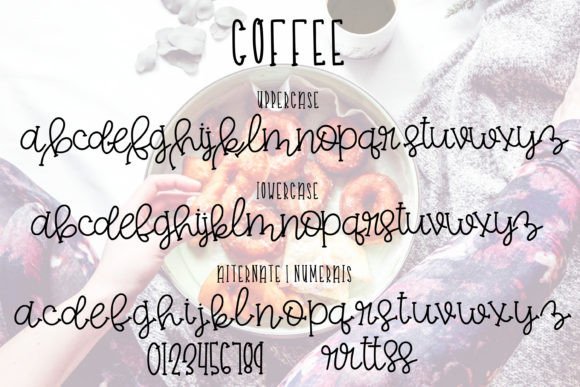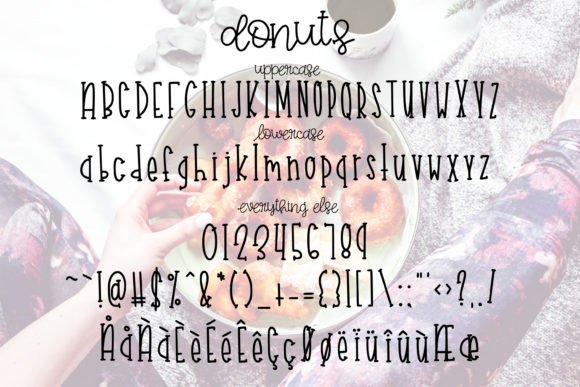
Coffee & Donuts Font: The Perfect Pairing for Creative Sweetness
Get ready to indulge in some creative sweetness with the Coffee & Donuts font duo! This playful pair of fonts is like the perfect combo of your favorite morning treat. The whimsical “Coffee” script brings a swirl of charm and the “Donuts” font adds a dash of simplicity with its casual style. Whether you’re designing for café menus, or greeting cards, this duo brings warmth and creativity to your projects. It’s a delightful mix that will have your designs brewing with joy!
The Coffee Font: A Whimsical Script with Charm
The Coffee font is a beautiful, hand-crafted script that brings a touch of elegance and whimsy to any design. Its flowing curves and swirling lines evoke the feeling of a perfectly poured cup of coffee on a lazy Sunday morning. This font is perfect for adding a personal touch to your designs, whether you’re creating a menu for a trendy café or a greeting card for a friend’s birthday.
With its unique blend of cursive and print elements, the Coffee font is sure to add a dash of sophistication and style to your projects. Its legibility and readability make it an excellent choice for body text, while its flair and personality make it perfect for headings and titles.
The Donuts Font: Casual, Simple, and Sweet
The Donuts font is a clean, casual, and highly legible sans-serif font that pairs perfectly with the Coffee script. Its simple, rounded edges and open curves make it easy to read and understand, even at small sizes. This font is ideal for adding a touch of friendliness and approachability to your designs, whether you’re creating a flyer for a bakery or a social media post for a food blog.
The Donuts font is also highly versatile, and can be used for a wide range of design applications, from headings and titles to body text and captions. Its simplicity and clarity make it an excellent choice for designers who want to convey a sense of warmth and approachability in their work.
Why Use the Coffee & Donuts Font Duo?
So why choose the Coffee & Donuts font duo for your next design project? Here are just a few reasons why this pair of fonts is a must-have for designers and crafters:
- Perfect pairing: The Coffee and Donuts fonts are designed to work together in perfect harmony, creating a beautiful and cohesive look that’s sure to delight.
- Versatile: This font duo is highly versatile, and can be used for a wide range of design applications, from café menus to greeting cards, flyers, and more.
- Easy to read: Both fonts are highly legible and easy to read, making them perfect for body text, headings, and titles.
- Unique and creative: The Coffee & Donuts font duo brings a touch of whimsy and creativity to any design, making it perfect for designers who want to stand out from the crowd.
Design Ideas with Coffee & Donuts Font
So what can you create with the Coffee & Donuts font duo? Here are just a few design ideas to get you started:
- Café menus: Use the Coffee font to add a touch of elegance to your café menu, and the Donuts font to list off your delicious food and drink options.
- Greeting cards: Create beautiful and personalized greeting cards with the Coffee & Donuts font duo, perfect for birthdays, holidays, and more.
- Flyers and brochures: Use the Coffee & Donuts font duo to create eye-catching flyers and brochures for your business or event.
- Social media graphics: Add a touch of whimsy and creativity to your social media graphics with the Coffee & Donuts font duo, perfect for Instagram, Facebook, and more.
In conclusion, the Coffee & Donuts font duo is a must-have for designers and crafters who want to add a touch of creativity and sweetness to their work. With its whimsical script and casual sans-serif font, this pair of fonts is perfect for a wide range of design applications, from café menus to greeting cards and more. So why wait? Get ready to indulge in some creative sweetness with the Coffee & Donuts font duo!